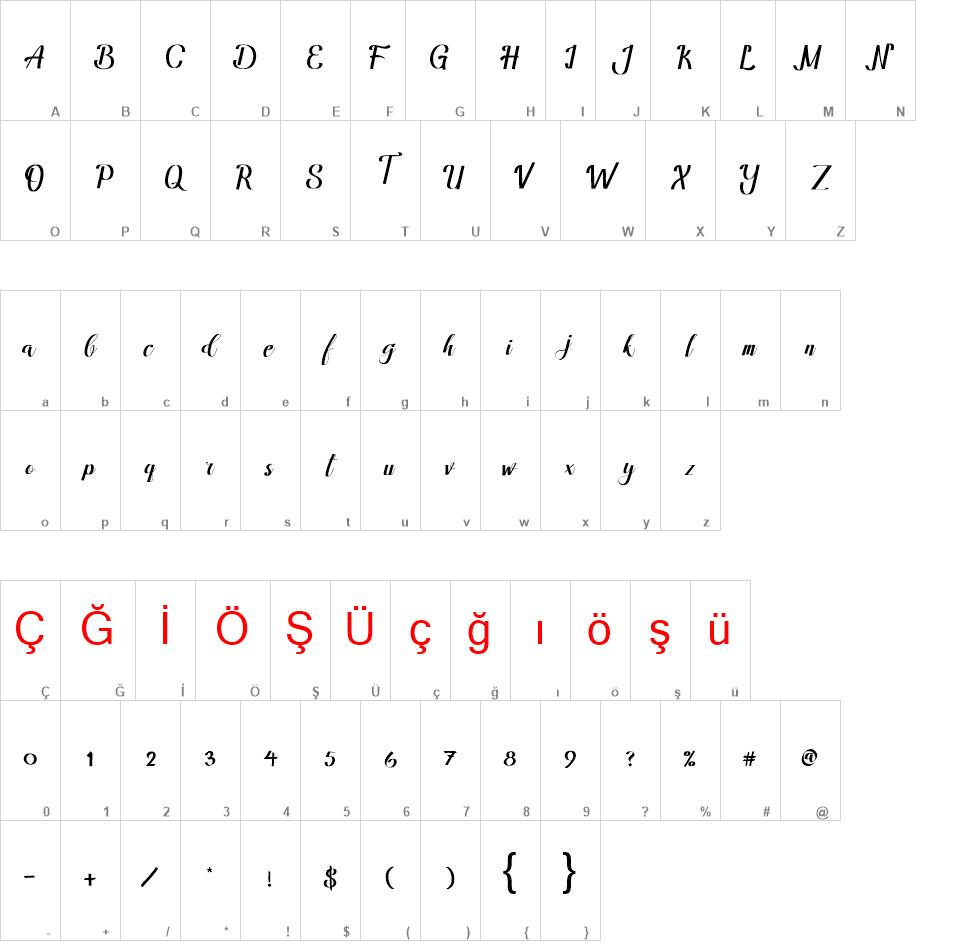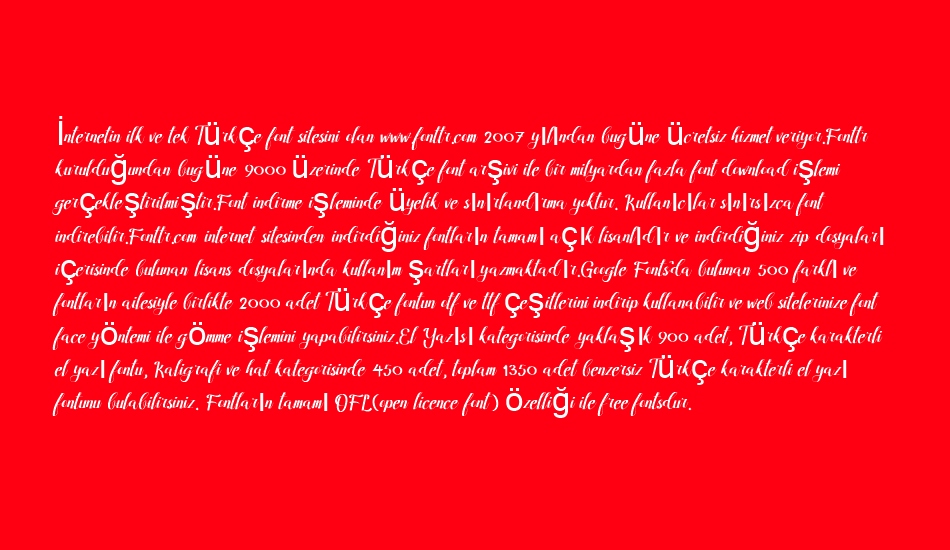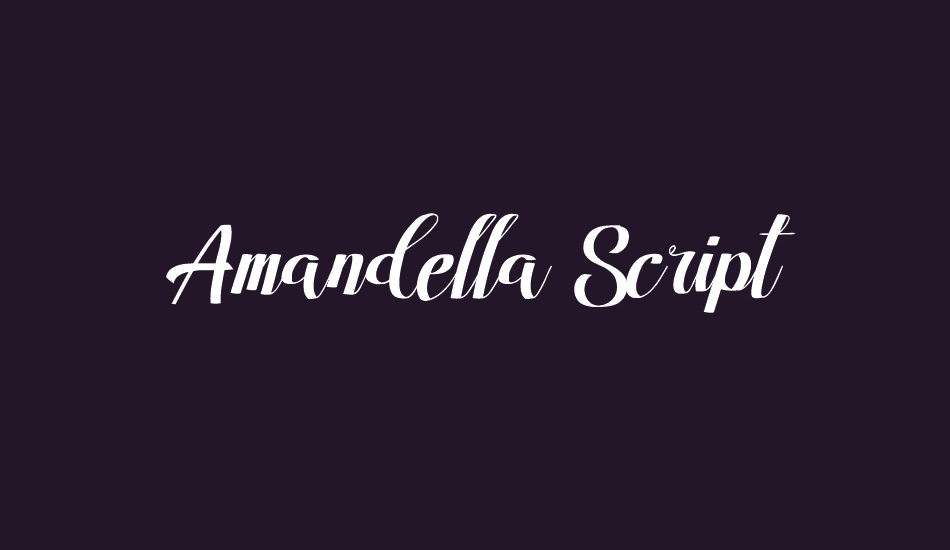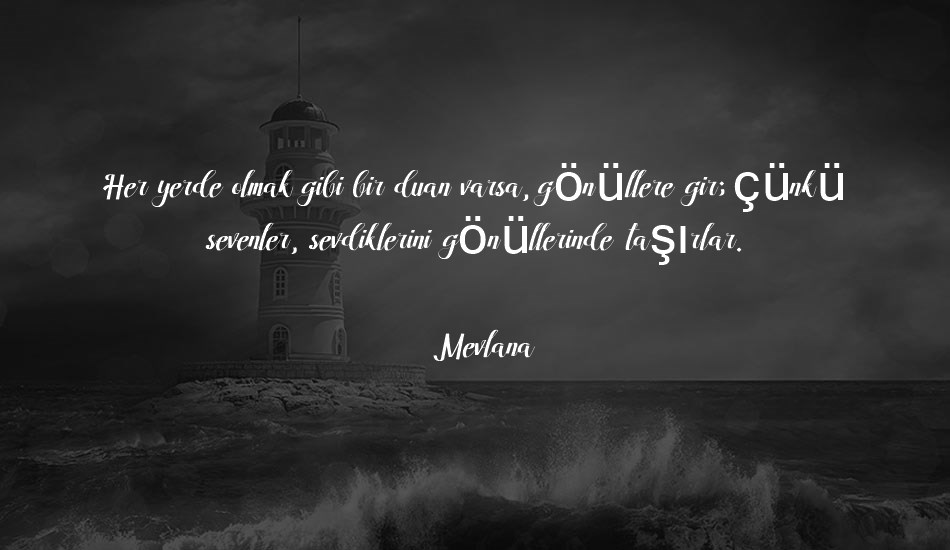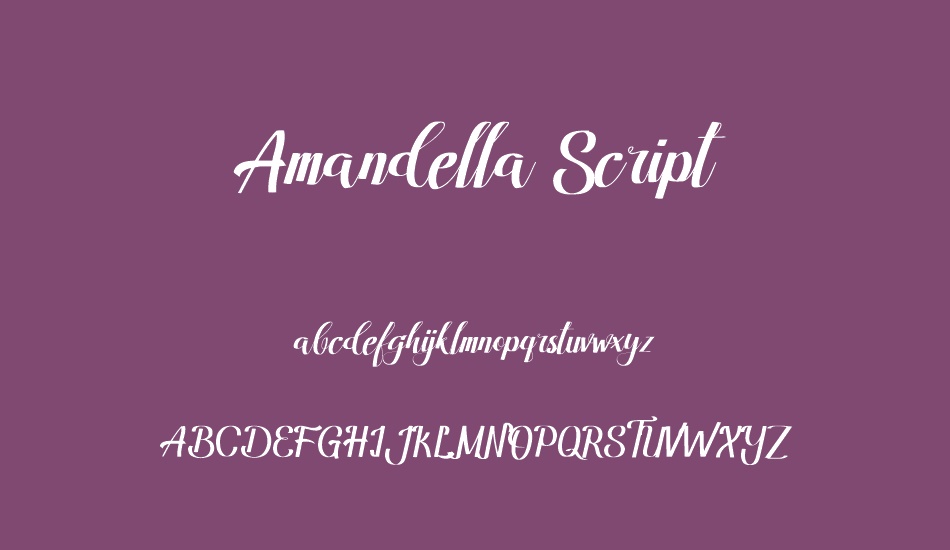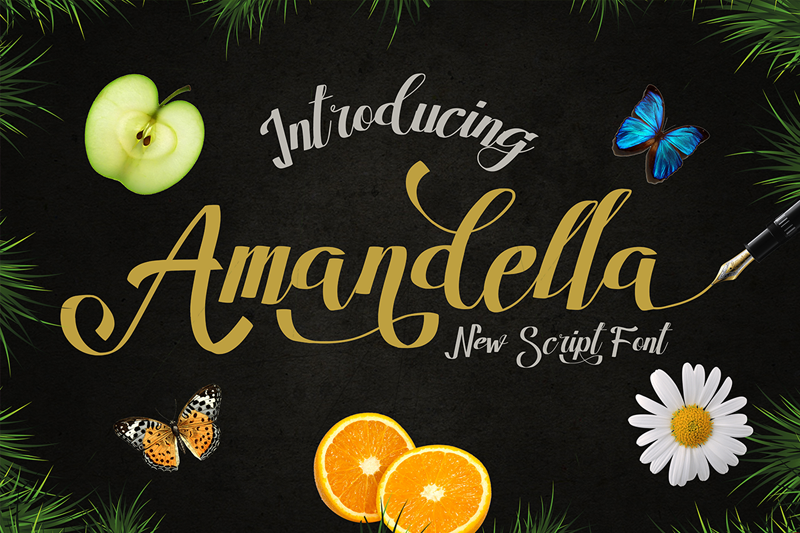
Amandella font
Amandella Script font
Amandella font
Introducing Amandella a handwriting font with cool character! Amandella come more than 300 glyphs and this perfect for poster design, book covers, merchandise, fashion campaigns, newsletters, branding, advertising, magazines, greeting cards, album covers, and quote designs and more.
UPPERCASE
lowercase
Number & Symbol
International Glyps
Alternative UPPERCASE
Alternative lowercase
Ligatures lowercase